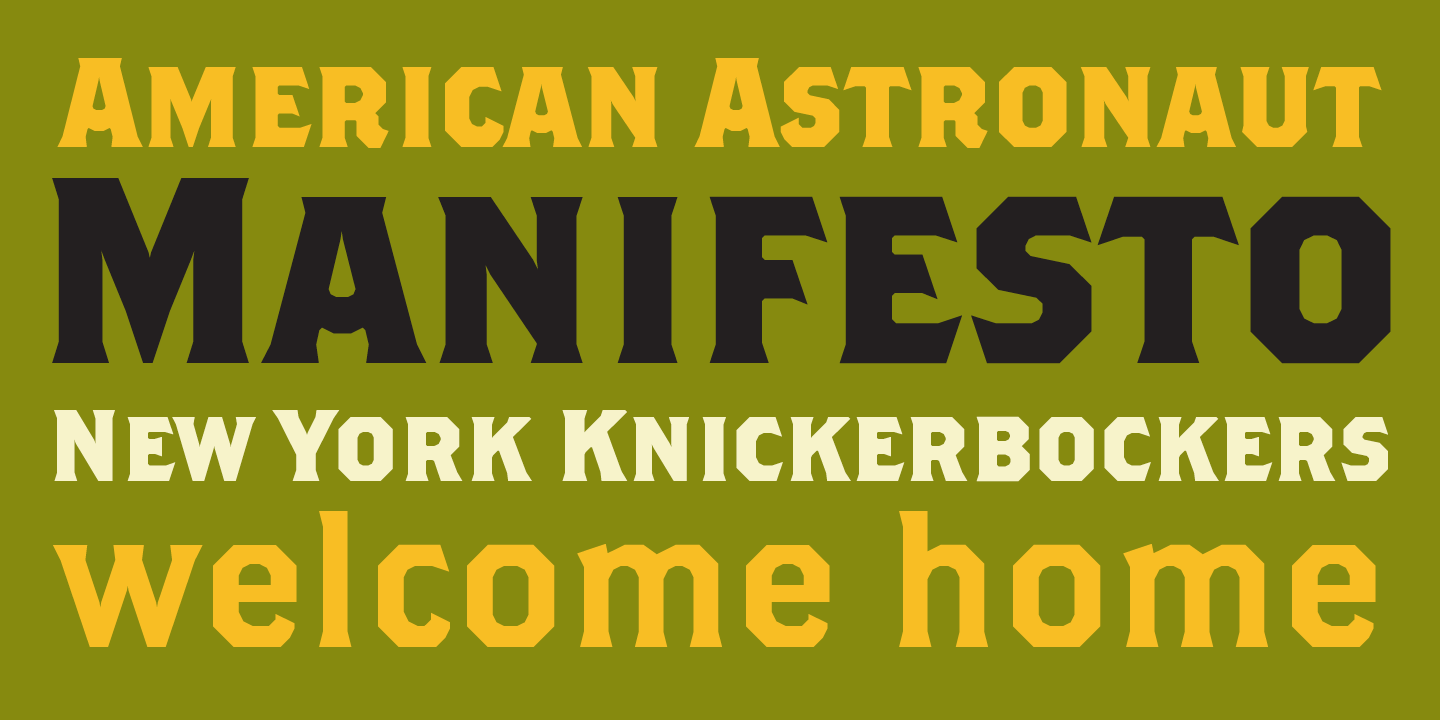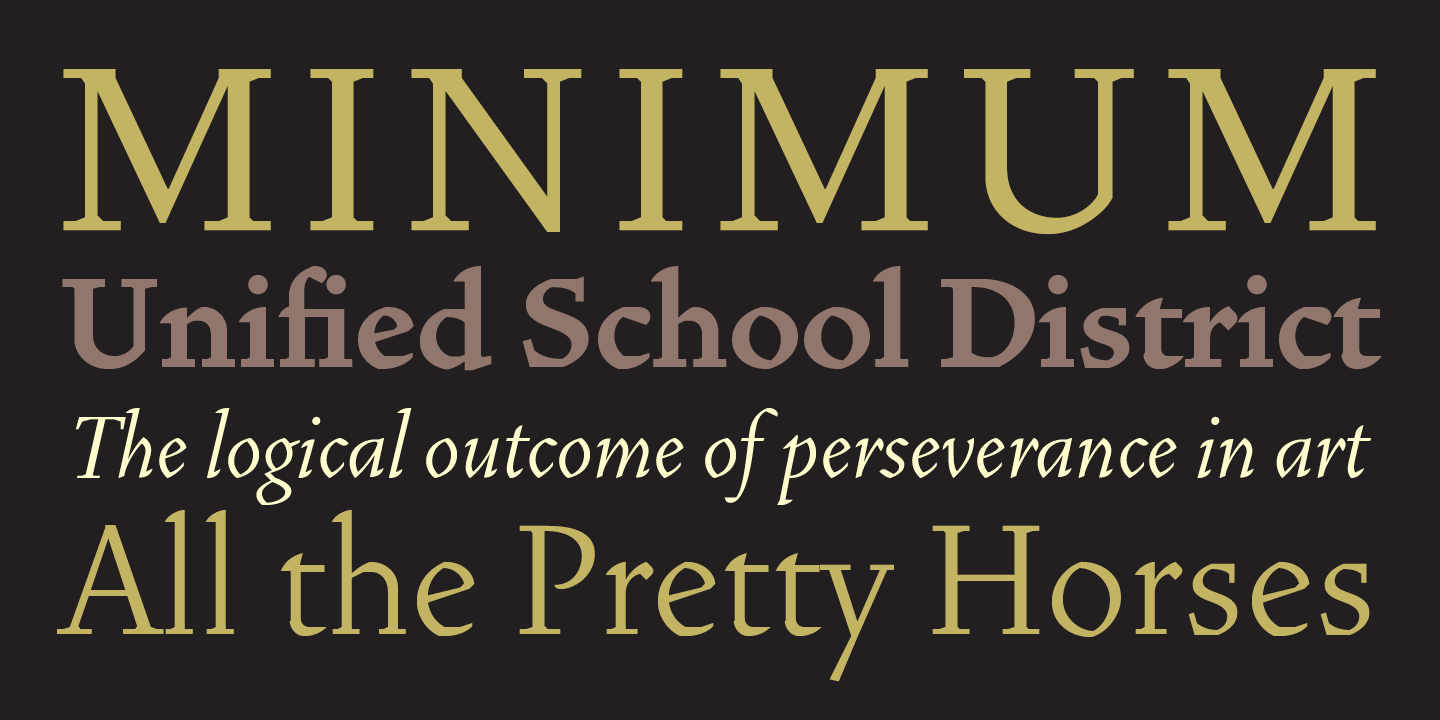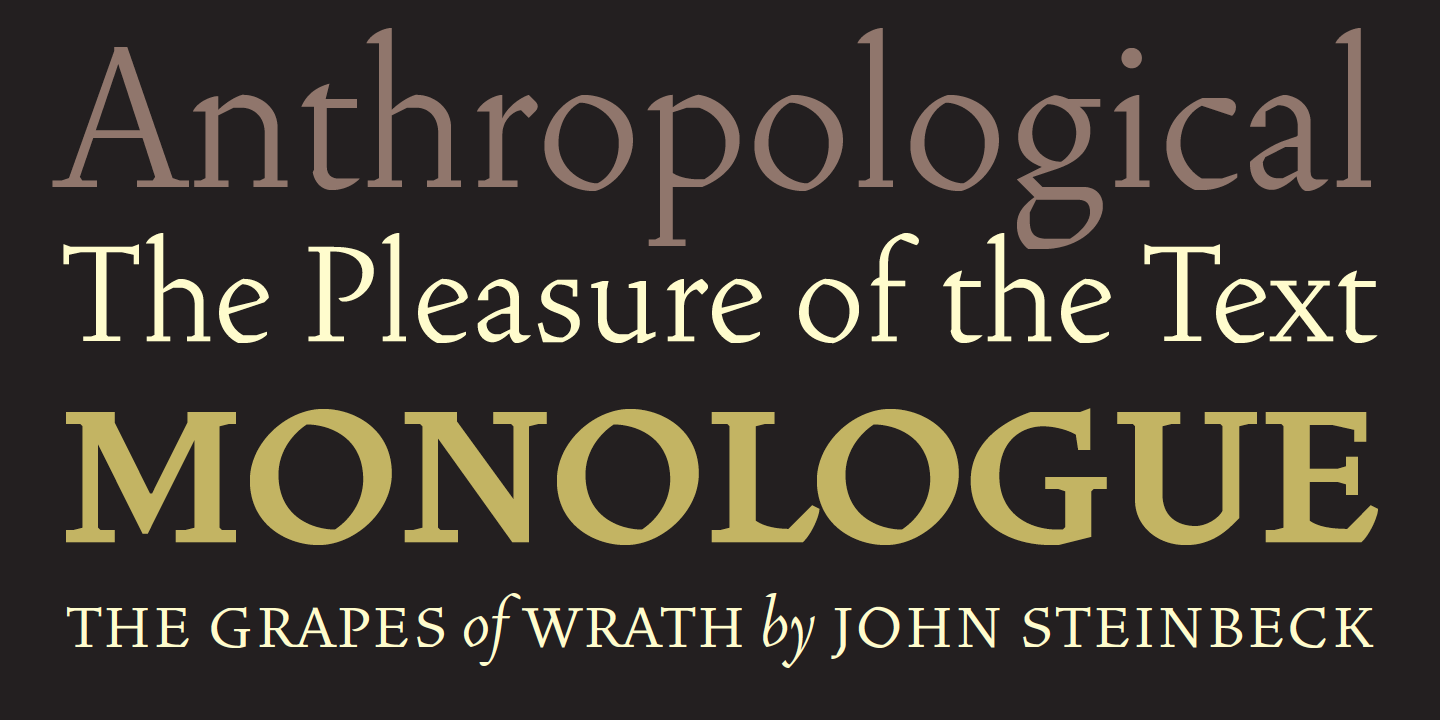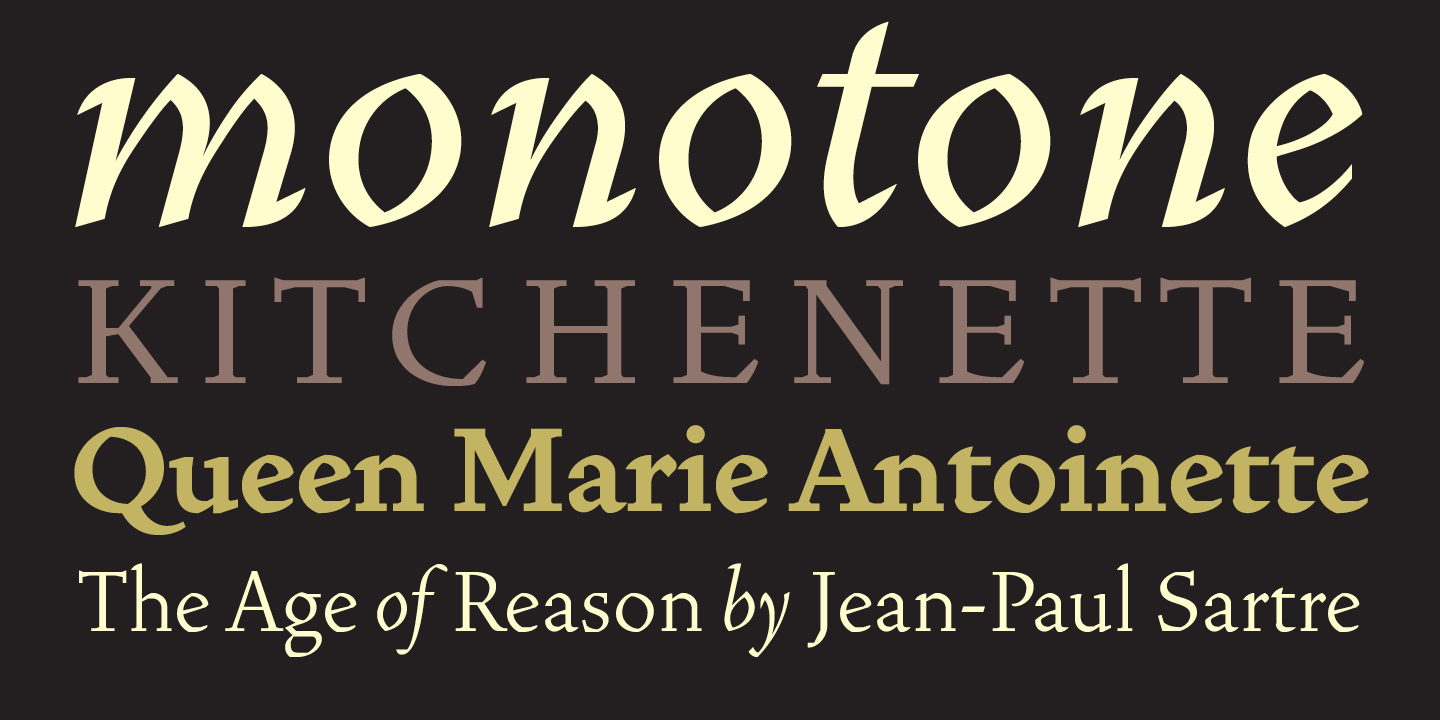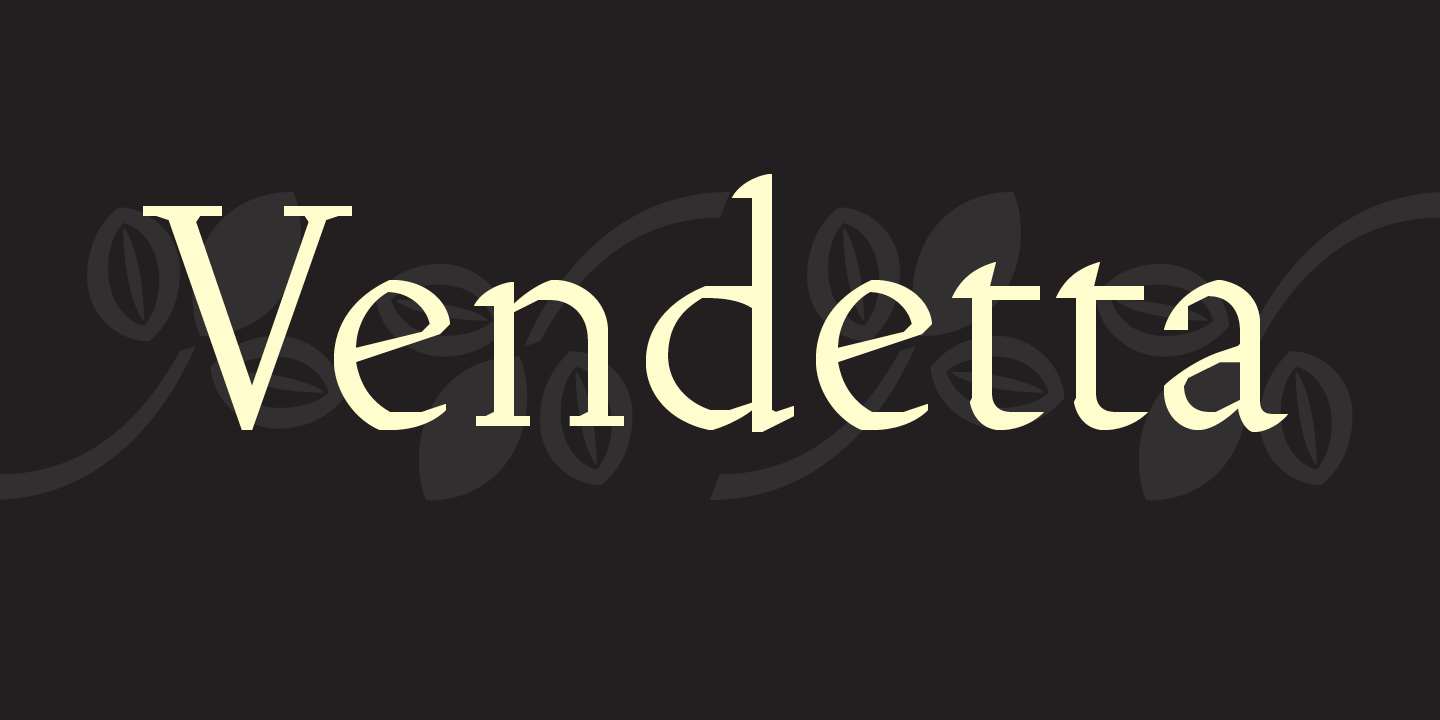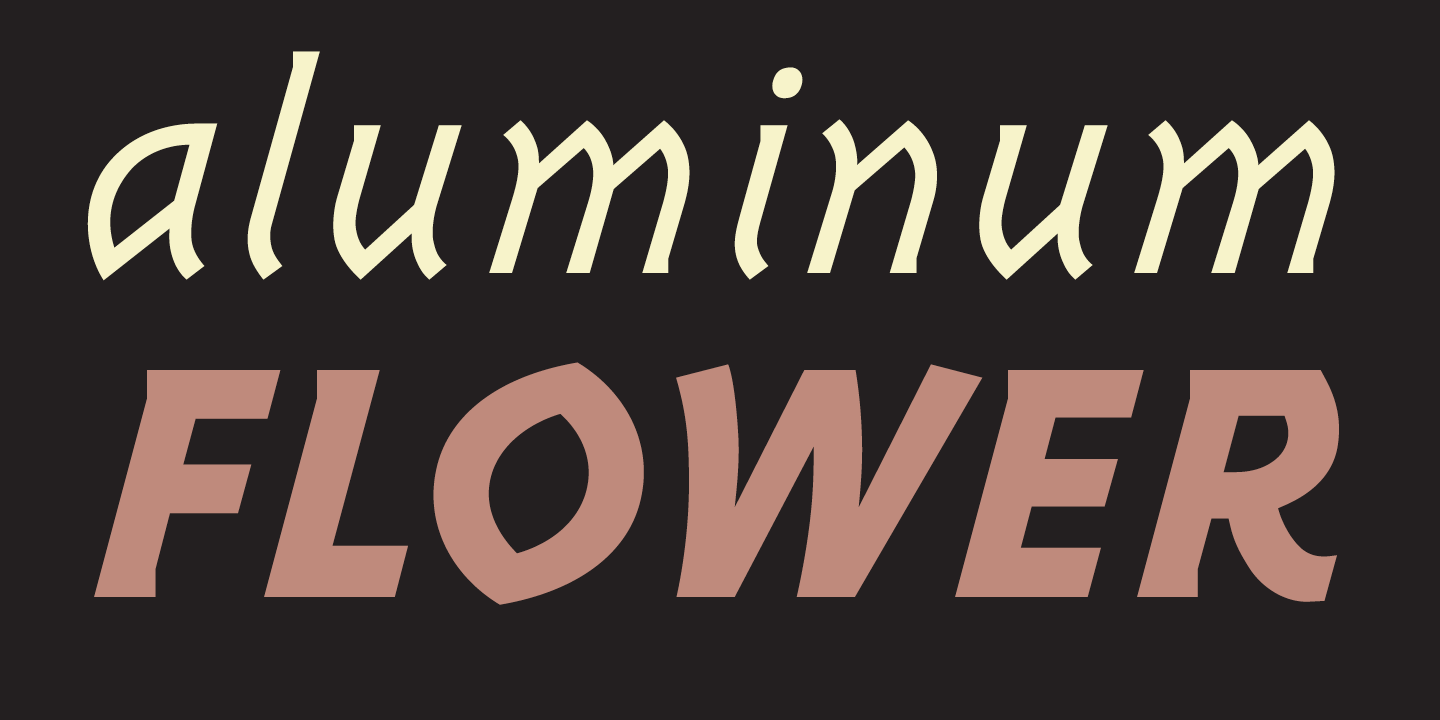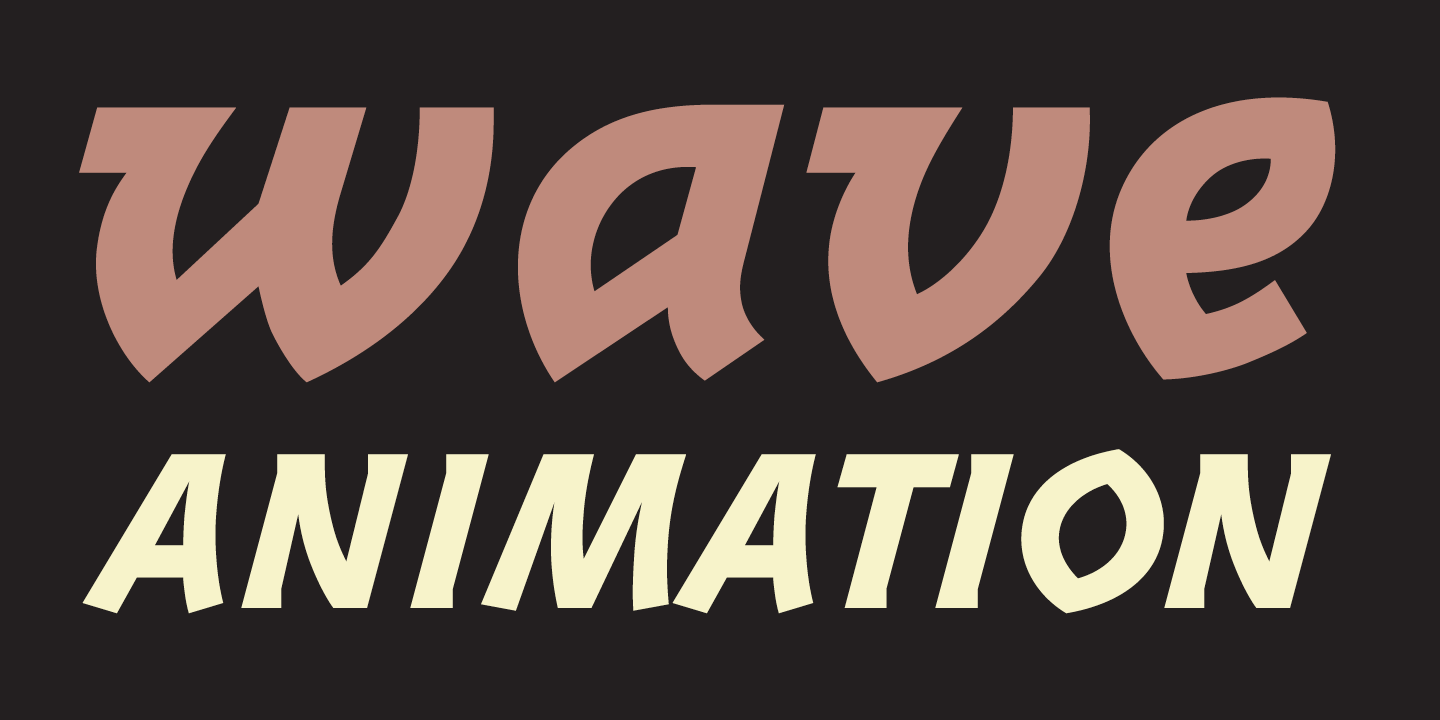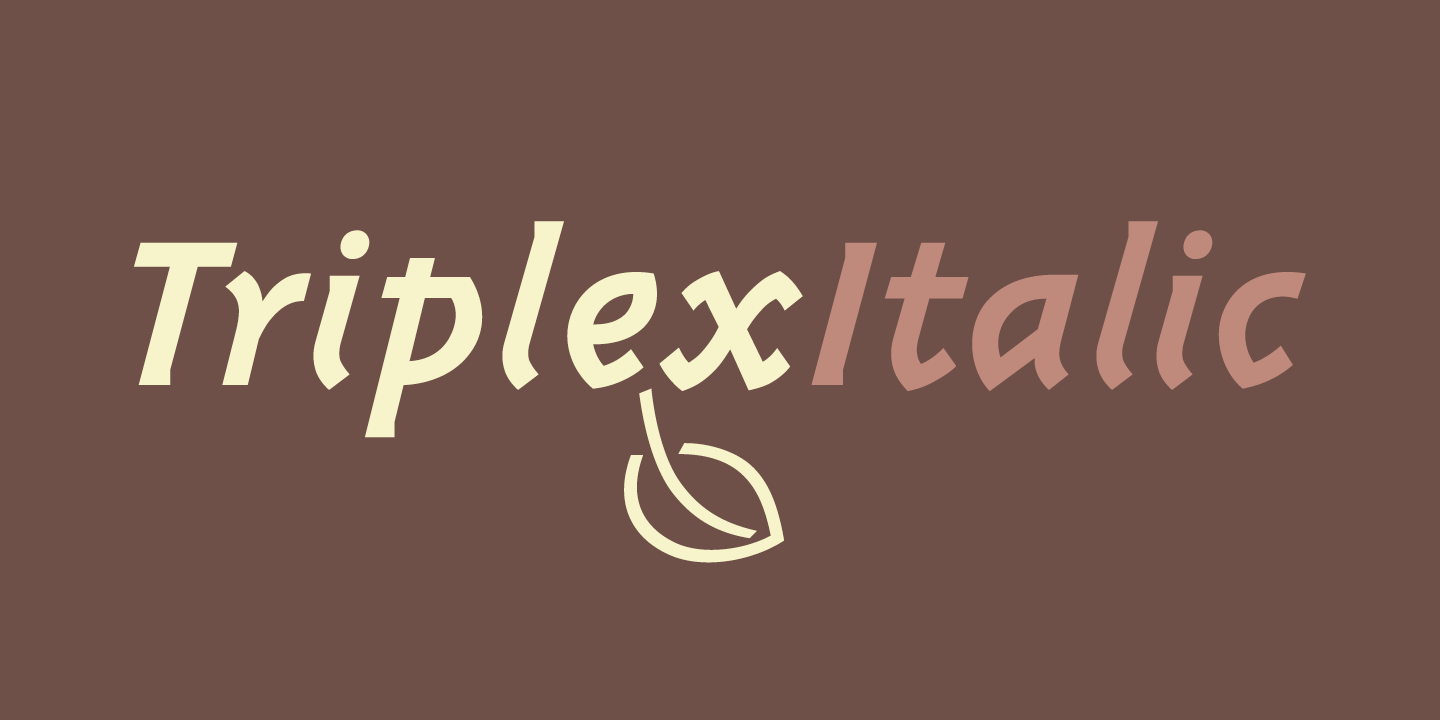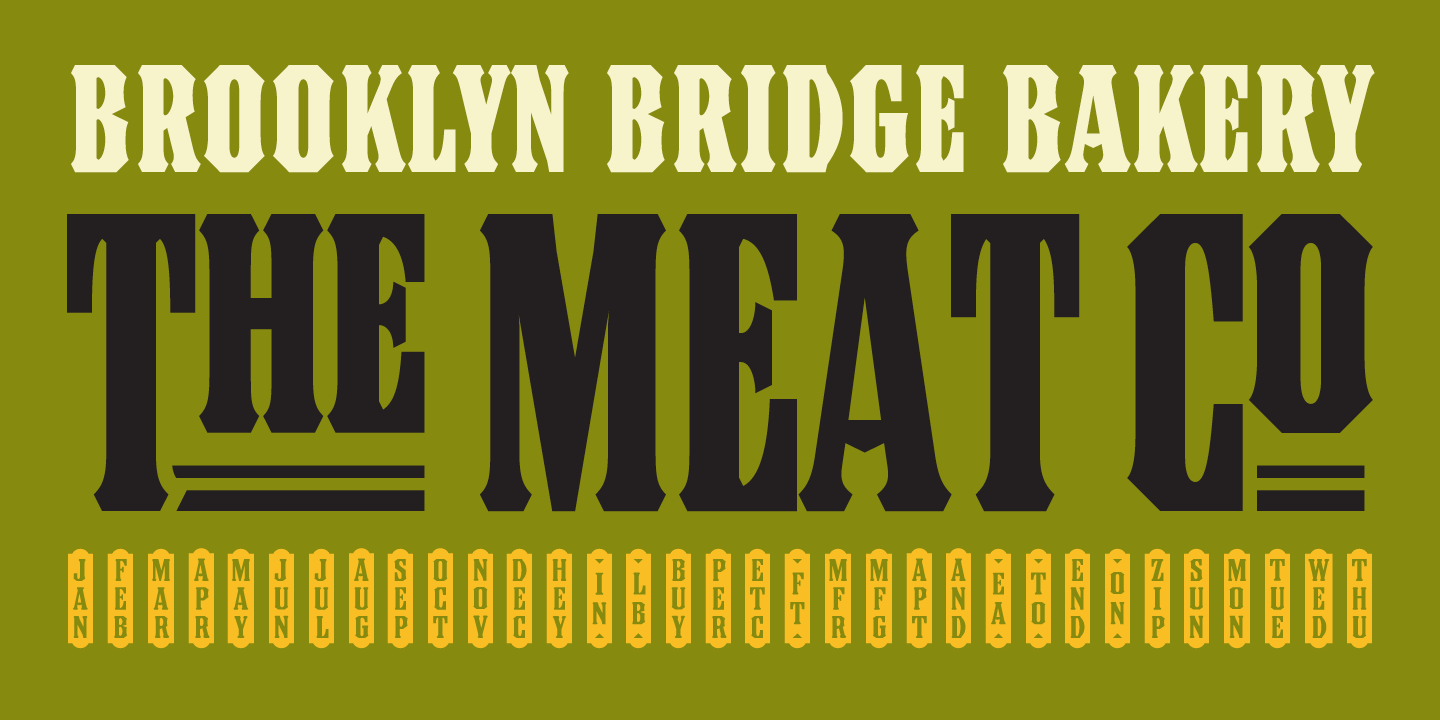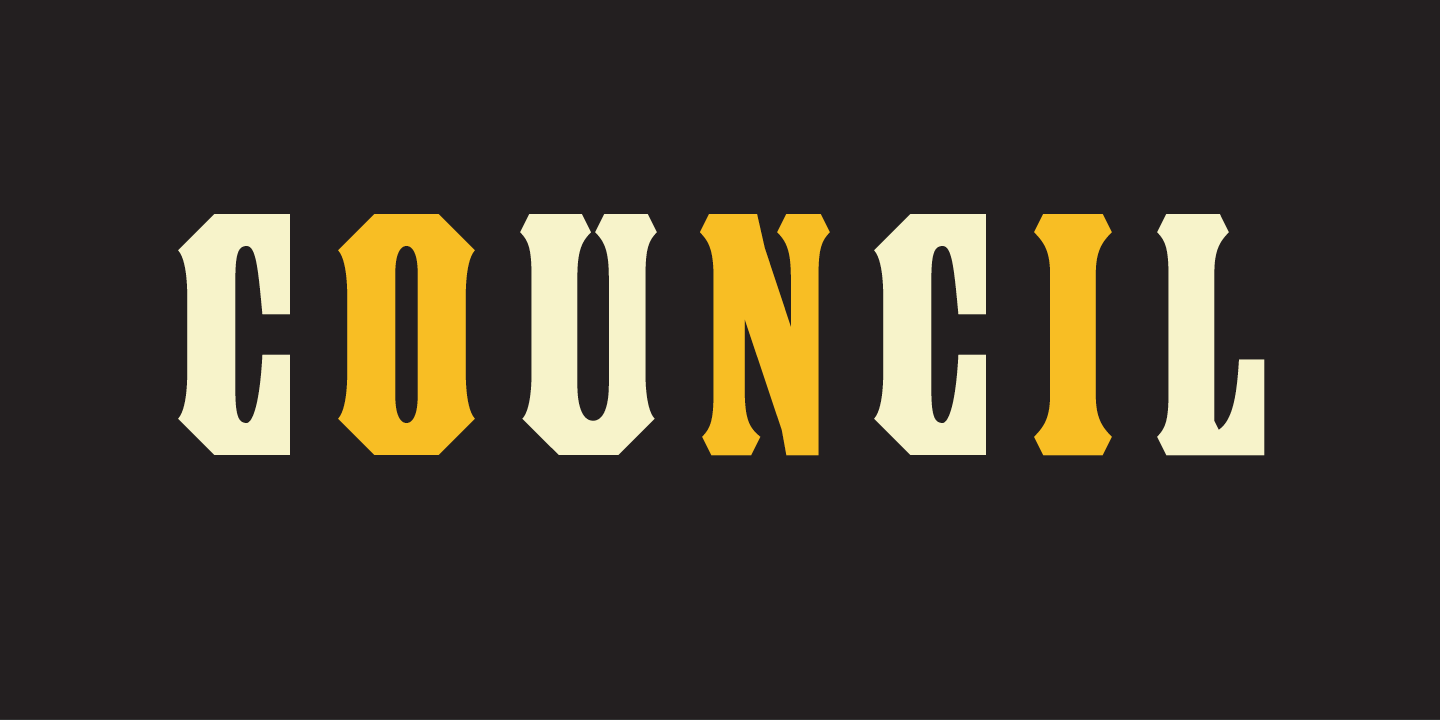
John Downer began training as a sign painter while he was in high school. He finished his apprenticeship after college, then started graduate studies in art at The University of Iowa, where he received MA and MFA degrees in painting.
John Downer currently resides in Iowa City, and lectures throughout the U.S. and Europe. His essays on type history and hand lettering have appeared in Emigre magazine and House magazine. Downer’s professional activities include sign painting, lettering, glass gilding, type design, typography, and logo design. He has also designed custom fonts for individuals and corporations.
Downer’s debut text family was Bitstream Iowan Old Style, published in 1991. Iowan Old Style is classified as a Venetian old style type design. It is related to earlier, 20th-century American interpretations of Italian Renaissance types cut by Nicolas Jenson and Francesco Griffo, but it is modeled also on classical inscriptional lettering and sign painting seen in certain regions of eastern Iowa.